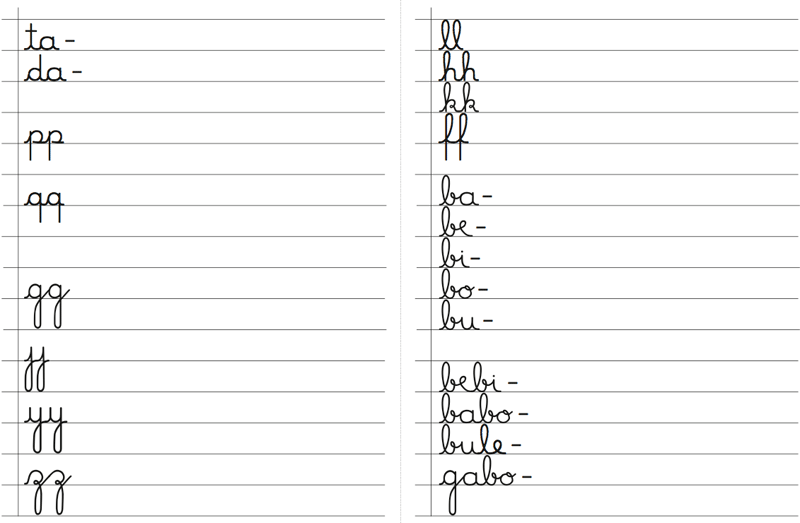
Font name: | Lumen |
Categories | Script, School |
Author: | Start Digital |
Note by Start Digital | |
This font was developed in partnership with an exceptional child educator specialized in motor skills and language learning. Use with childs to help teaching how to write. The ligatures are 80% efficient. |